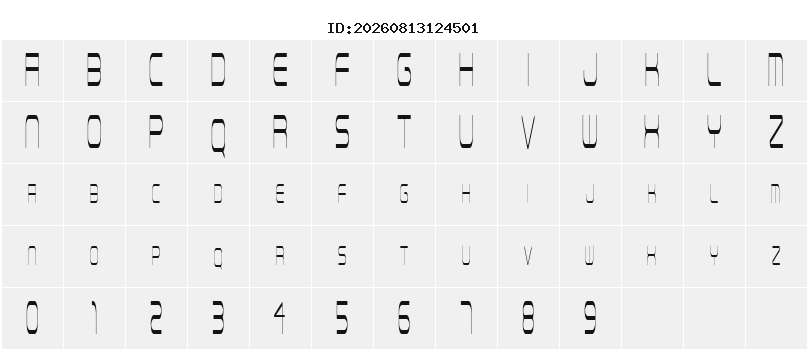
Recon Preview
• Font Name: Recon
• Font Style: Reconnaissance Mission
• Font ID: RTD:Reconnaissance Mission
• Full Font Name: Reconnaissance Mission
About Recon.ttf
Recon.ttf is a modern, elegant sans-serif font designed for ultimate readability and visual harmony. Perfect for branding, headlines, web design, and print materials.